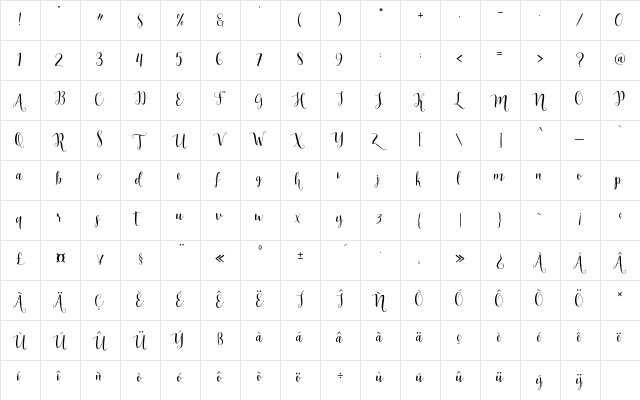
Indah Script Regular
| Foundry | Syafrizal/Khurasan |
| Designer | Syafrizal/Khurasan |
Design Context for Indah Script Typeface
Indah Script flows with the natural rhythm of handwritten lettering, making it ideal for designs that call for warmth and personal expression.
Font Pairing: Combine Indah Script with a simple geometric sans for maximum contrast — the tension between flowing curves and clean structure is a classic typographic pairing.
Pro Tip: Use Indah Script for short runs of text — names, titles, or taglines. Extended body copy in script faces tires the eye quickly.